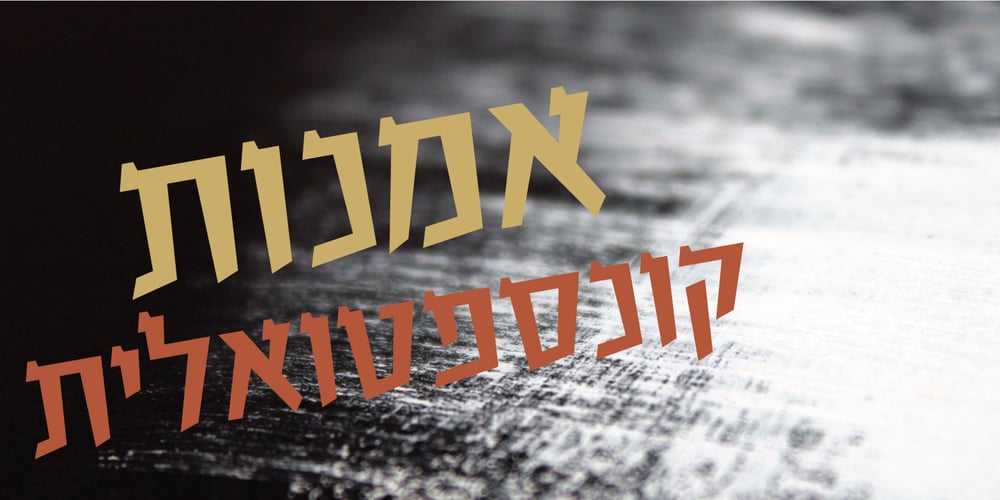
Gizbarut Serif MF
Gizbarut Serif MF font
Gizbarut Serif MF Font Family was designed by Zvika Rosenberg and published by Masterfont. Gizbarut Serif MF contains 3 styles and family package options. Geometric forms make this elegant font family a great companion for titles, invitations and signs, indoor and outdoor.